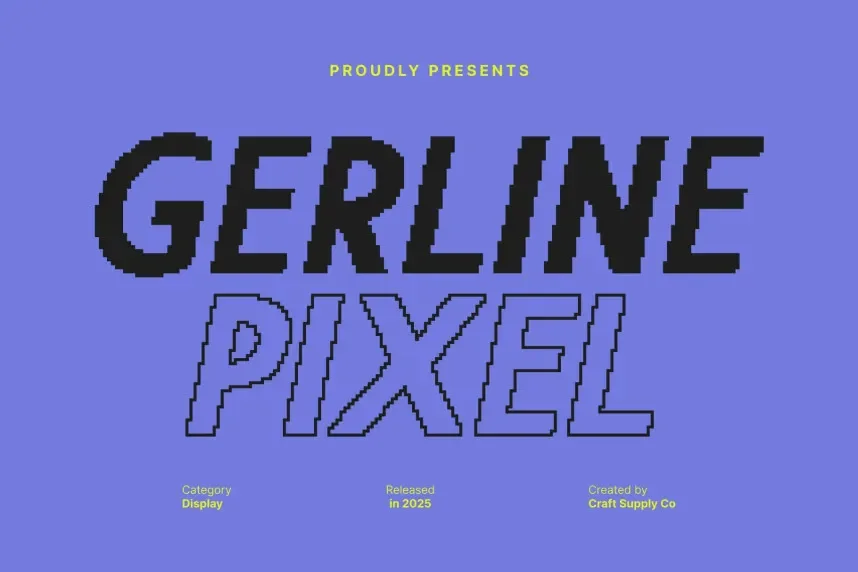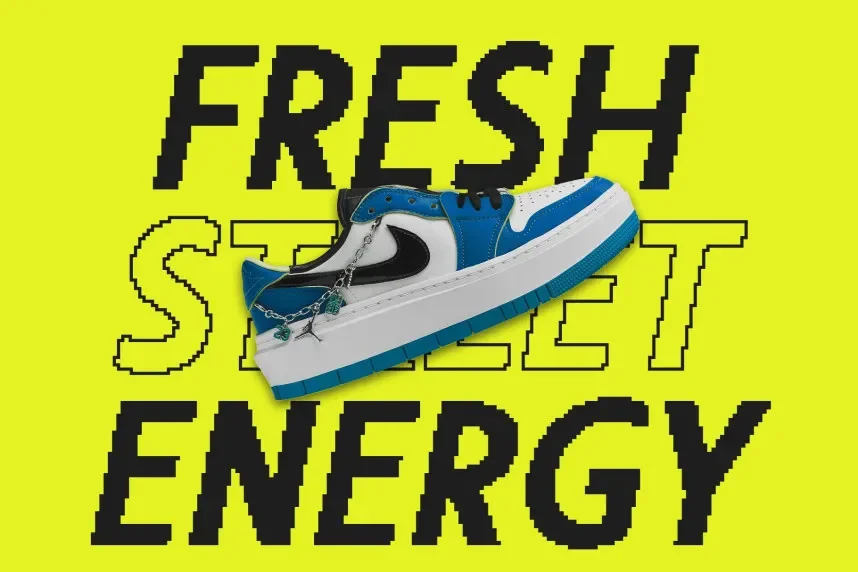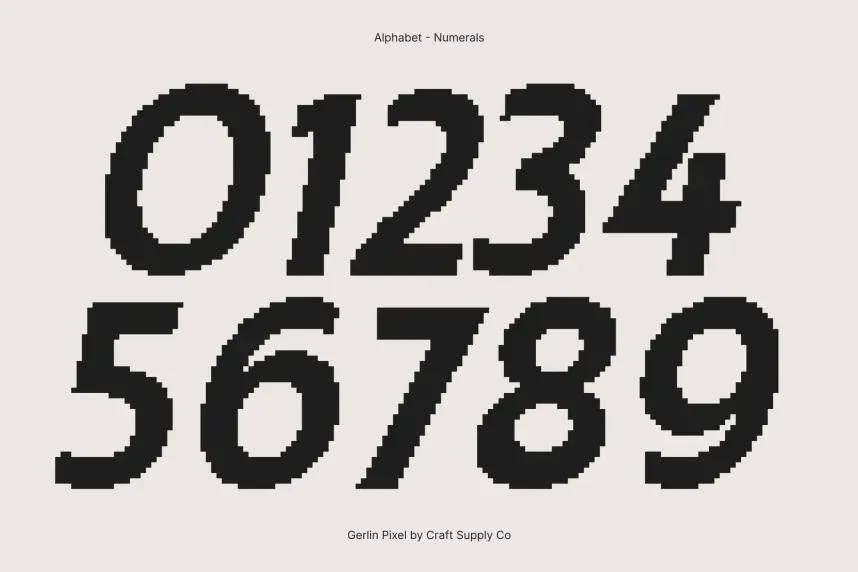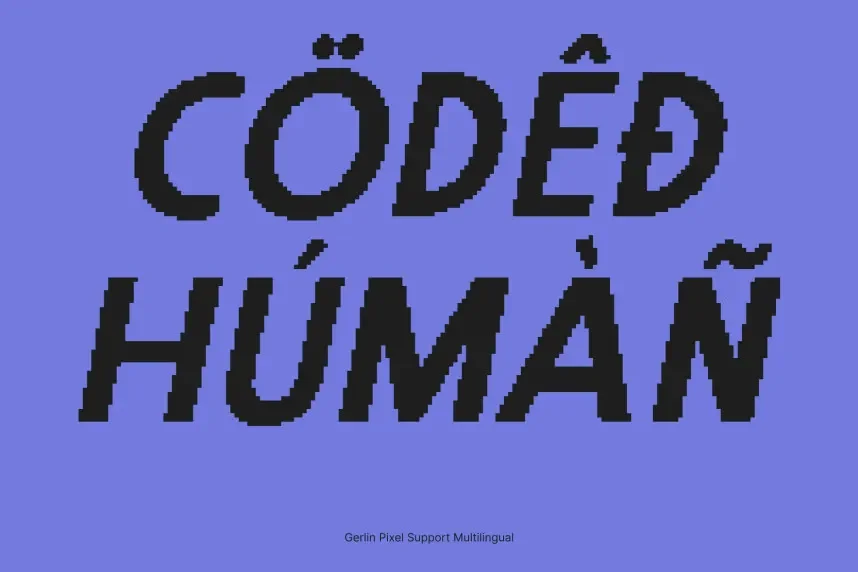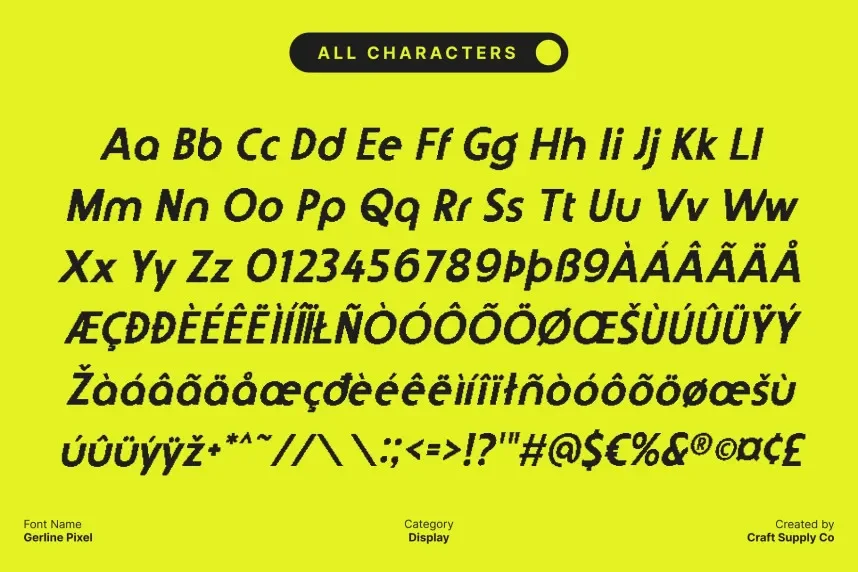
Gerline Pixel Font is a modern pixel-based typeface with a clean, structured design. Its distinct edges and clear pixel formation make it ideal for tech branding, website headers, and other digital projects that require strong readability with a retro touch.
Best used for tech branding, app interfaces, and digital art, Gerline Pixel Font pairs well with minimalistic sans-serif fonts for balance. Available in TTF and OTF formats, it includes a commercial-use license. Be sure to check the licensing for commercial applications.